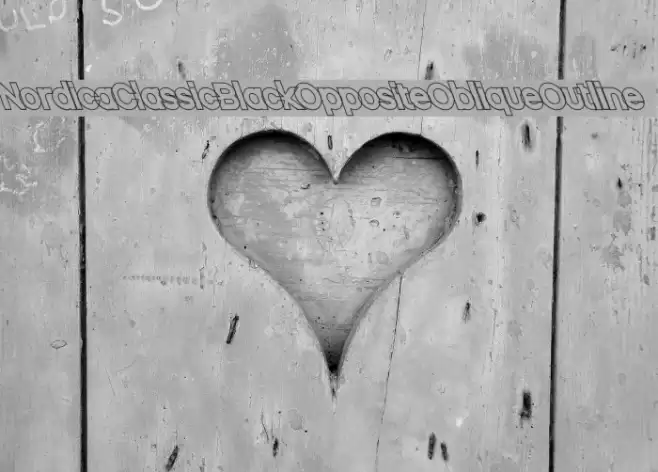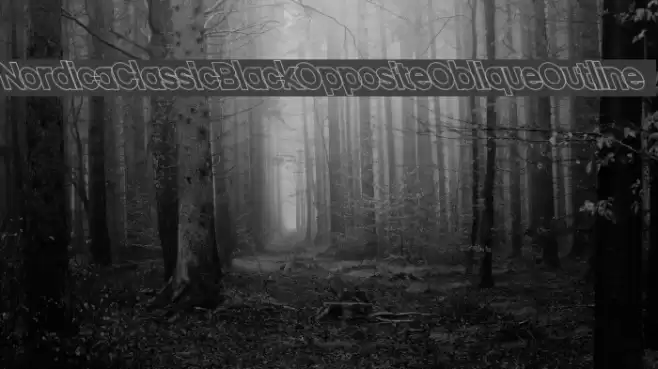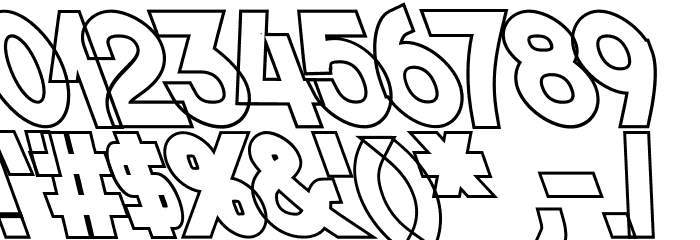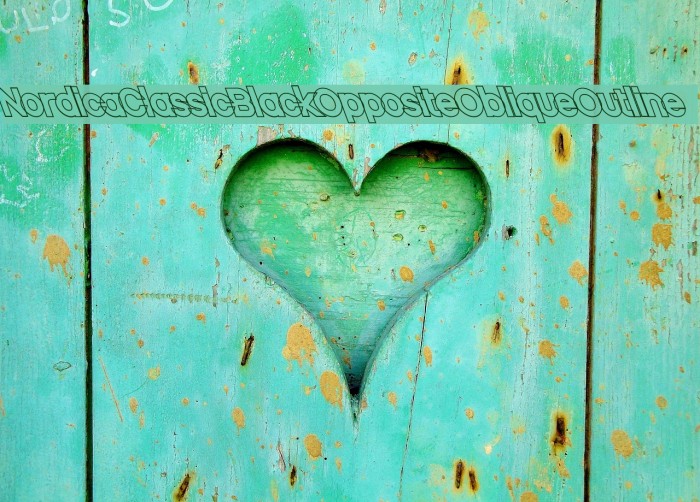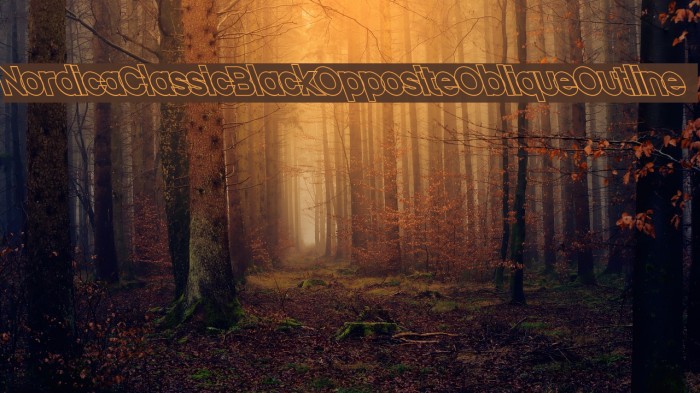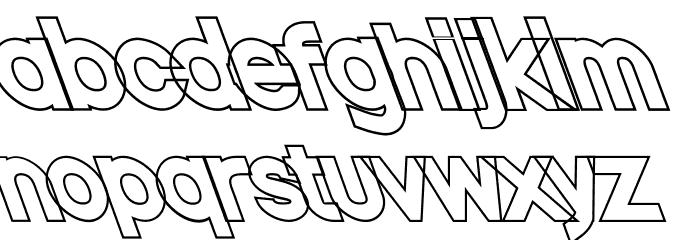
Nordica Classic Black Opposite Oblique Outline
This font features a bold, geometric style with a distinct outline that gives it a three-dimensional appearance. The characters are uniformly slanted, creating an oblique effect that adds dynamism and movement. The uppercase and lowercase letters maintain a consistent width, contributing to a balanced and cohesive look. The numerals and special characters follow the same design principles, ensuring uniformity across all glyphs. The font's outline style makes it ideal for creating striking visual impact, while the clear, sans-serif structure ensures readability.
A bold, outlined, oblique font with a geometric, sans-serif style.
- Proposed Projects: Ideal for posters, headlines, branding, and any project requiring a bold, eye-catching typeface.